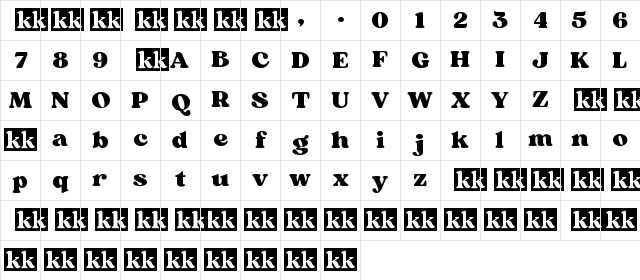
Complete Sergio Trendy Regular glyph index. Displaying only characters natively supported by Sergio Trendy Regular font.
Sergio Trendy is a composed and adaptable typeface that performs quietly and consistently across a wide range of design contexts.
Pro Tip: Use Sergio Trendy in both headline and body roles to test its range before committing to a single application.